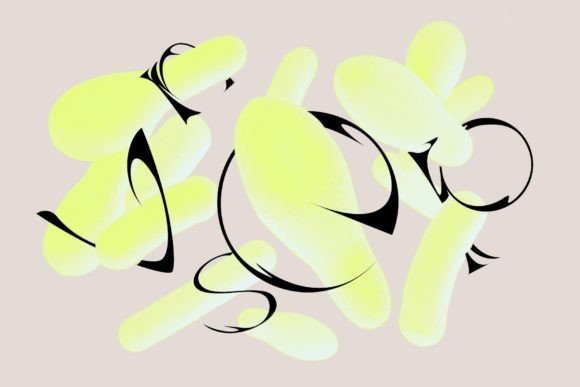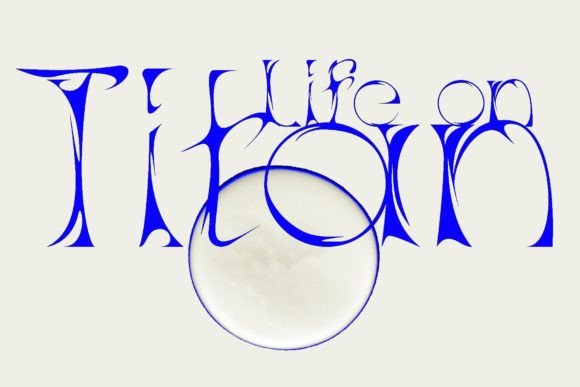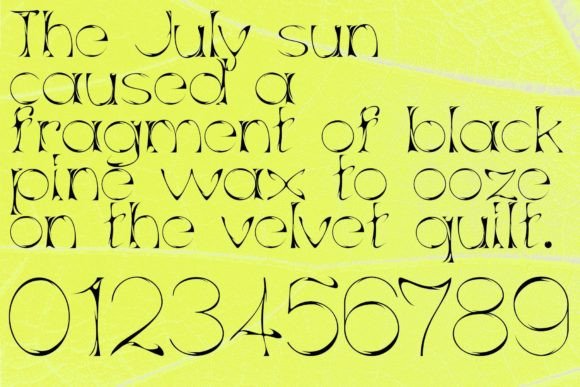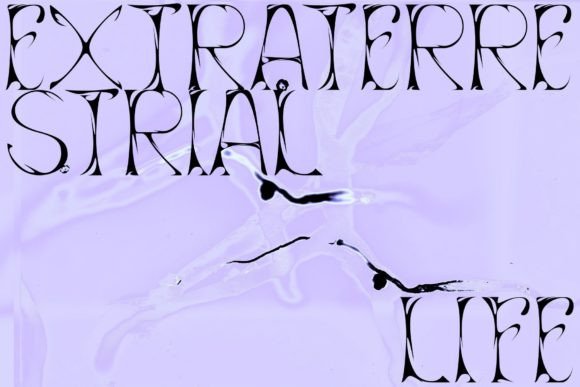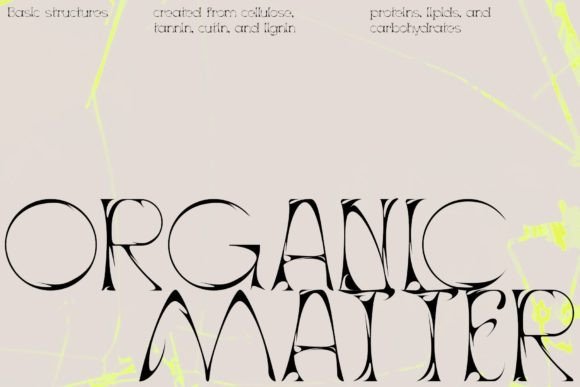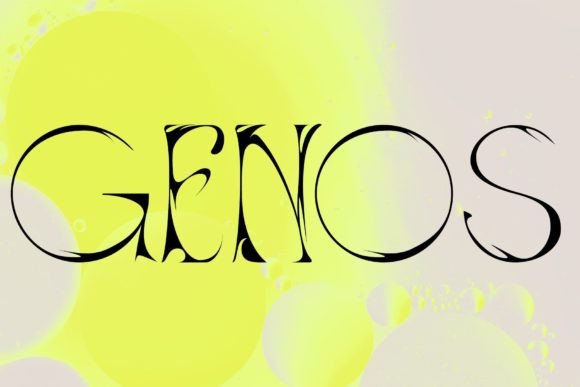
Introduction to Lifeform Font Font
Fonts play a crucial role in design, and the Lifeform Font font is a typeface that brings both character and versatility to any project. Whether you’re working on a branding project, a website, or a print design, the Lifeform Font font offers a unique style that can elevate your work.
Lifeform is a modern display font created as a result of my experiments on the forms of letters.
The result is a contrasting font that has both curves and sharp, smooth lines that resemble some kind of organic matter The font is well suited for large headlines, posters, and covers.
Key Features of Lifeform Font Font
Why Choose Lifeform Font Font?
The Lifeform Font font is more than just a typeface – it’s a design tool that helps you communicate your message with style and clarity. Its unique character set and versatile design make it suitable for a wide range of applications, from elegant invitations to bold headlines.
With its carefully crafted letterforms and balanced proportions, the Lifeform Font font ensures readability and visual appeal across all mediums.
What makes Lifeform Font font special?
The Lifeform Font font stands out with its unique design, exceptional readability, and versatility across various design applications.